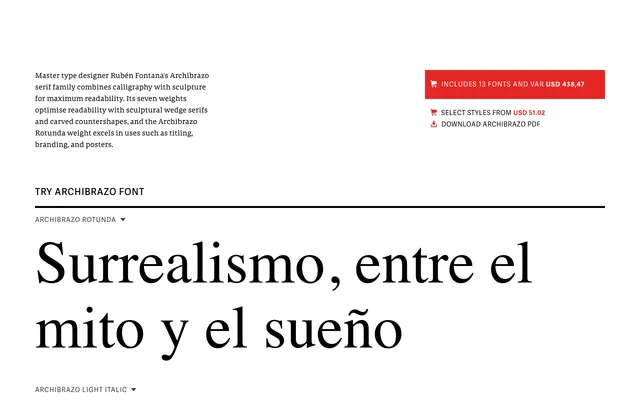
Archibrazo
A sculptural wedge-serif by Rubén Fontana with a Rotunda display variant, rooted in Argentine cultural heritage and designed for effortless readability.
Archibrazo combines calligraphic roots with sculptural wedge serifs across seven weights, drawing inspiration from the Buenos Aires surrealist publishing house El Archibrazo. The Rotunda variant adds a round-lettered display face for titling and poster work. Thirteen fonts total, with variable font support and a full OpenType feature set.
Sculptural wedge-serif with a Rotunda display variant; pays homage to Buenos Aires publisher El Archibrazo; designed by veteran Argentine type designer Rubén Fontana